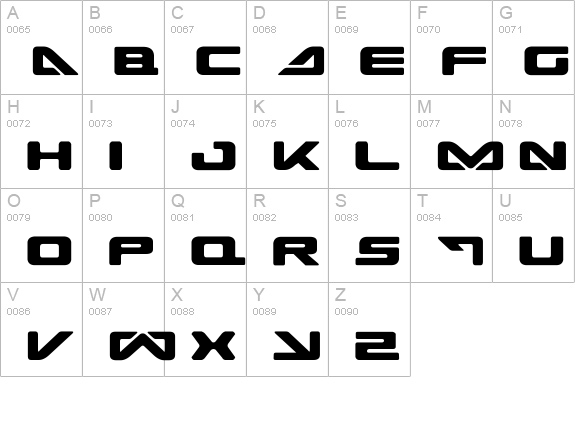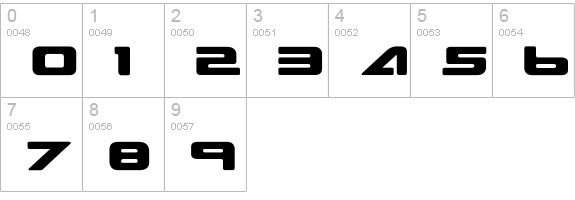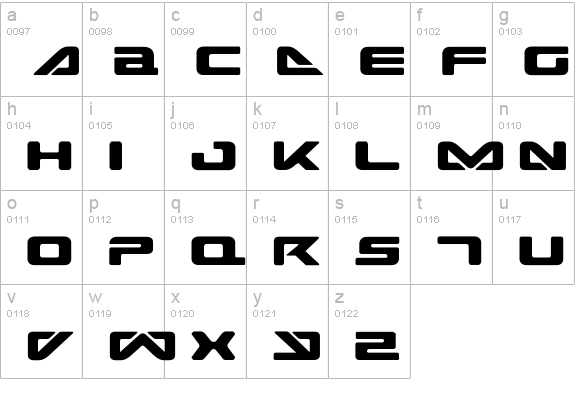
Sea-Dog Font Details
Sea-Dog font is a stunning and versatile typeface that captures the spirit of the sea with its unique and bold design. This font is perfect for projects that require a nautical or maritime theme, as it effortlessly conveys a sense of adventure and exploration. With its strong and bold letterforms, Sea-Dog font commands attention and adds a touch of professionalism to any design. Whether you're creating a logo for a sailing club, designing an invitation for a beach-themed event, or crafting a poster for a seaside resort, Sea-Dog font will elevate your design to new heights. What sets Sea-Dog font apart is not only its captivating design, but also the fact that it is free! Yes, you heard that right – this extraordinary font is freely available to download at FontsMarket.com. Now you can enjoy the beauty and versatility of Sea-Dog font without any cost, making it a truly valuable asset for designers, creatives, and enthusiasts alike. Downloading Sea-Dog font from FontsMarket.com is quick and hassle-free, allowing you to incorporate this stunning typeface into your projects with ease. Whether you're a professional designer or a hobbyist, this font will undoubtedly become a go-to choice in your typographic arsenal. So why wait? Dive into the world of Sea-Dog font today and let your creativity sail to new horizons. Download it for free at FontsMarket.com and embark on a design journey that captures the essence of the sea like never before.